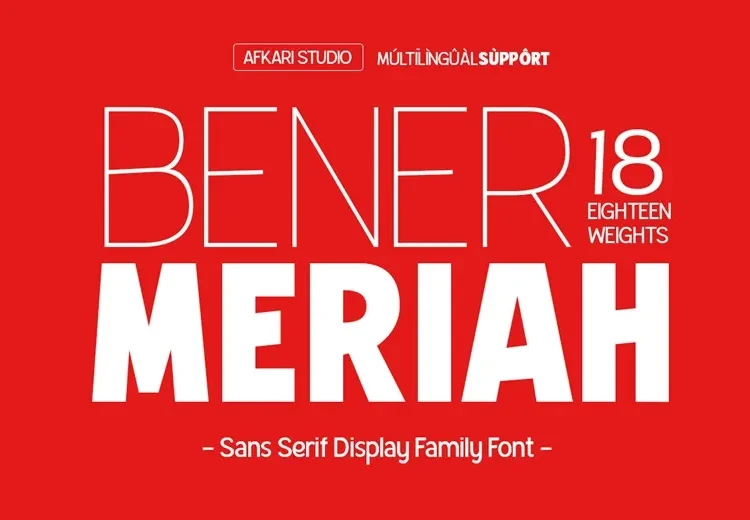
Bener Meriah Font
Bener Meriah is a modern sans serif font family designed for those who require both style and functionality. With an impressive range of 18 weights, from ultra-thin to ultra-bold, and italic styles available for each weight, this font family offers incredible flexibility for various design projects. Whether you’re working on branding, advertising, packaging, or more, Bener Meriah is the perfect solution for all your creative needs.
Its clean, understated aesthetics make it perfect for any project that demands legibility, whether for large billboards, complex layouts, or smaller-scale uses. Bener Meriah seamlessly bridges the gap between traditional and contemporary design, providing a timeless and versatile typeface.